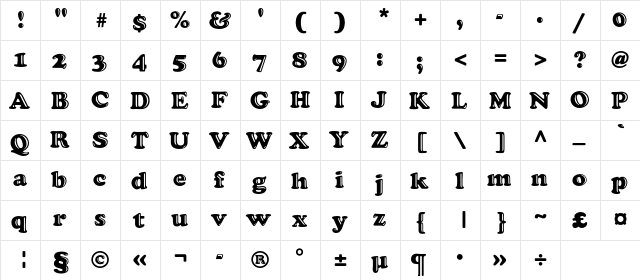
CooperDAT Hilite Regular
Design Context for CooperDAT Hilite Typeface
CooperDAT Hilite takes a measured approach to typography — its balanced proportions and neutral character make it a reliable workhorse for both digital and print work.